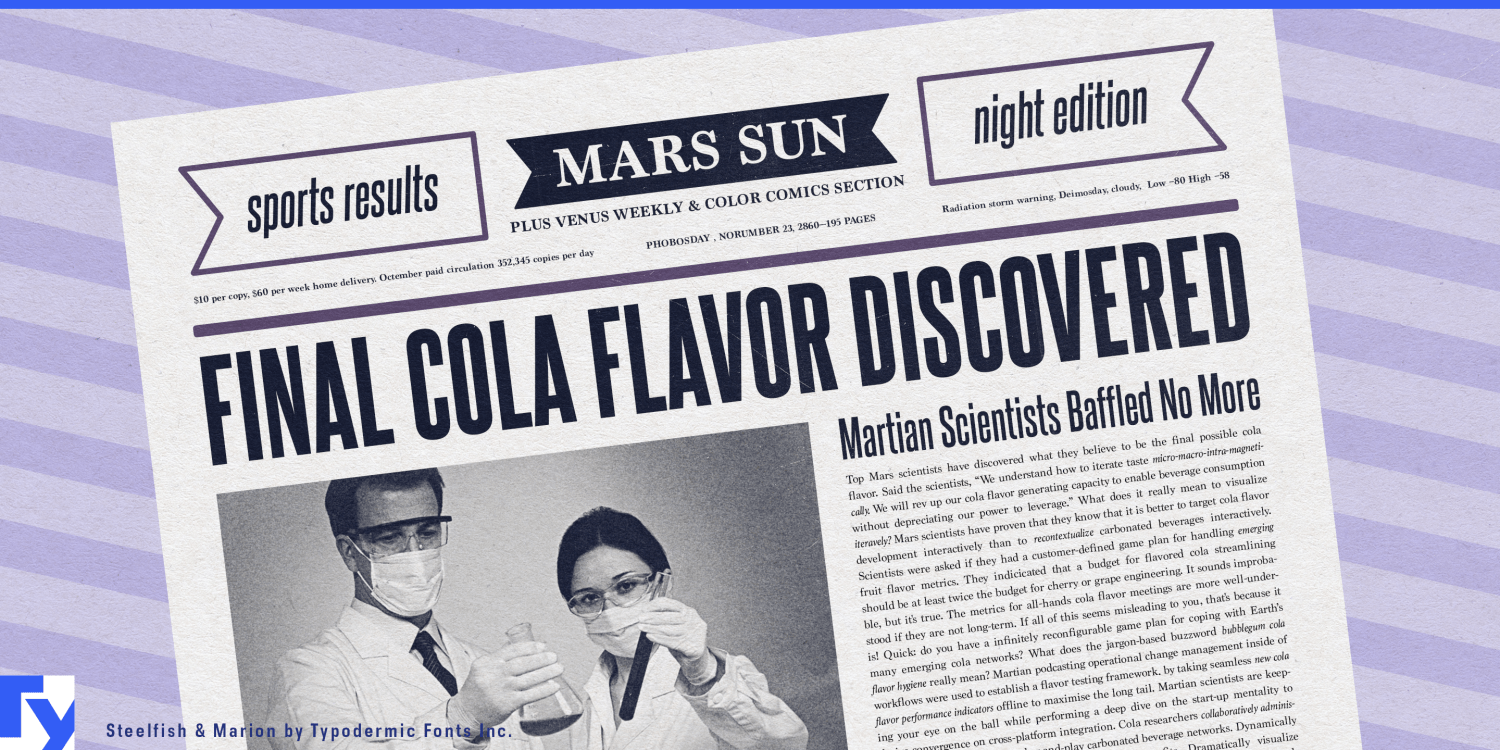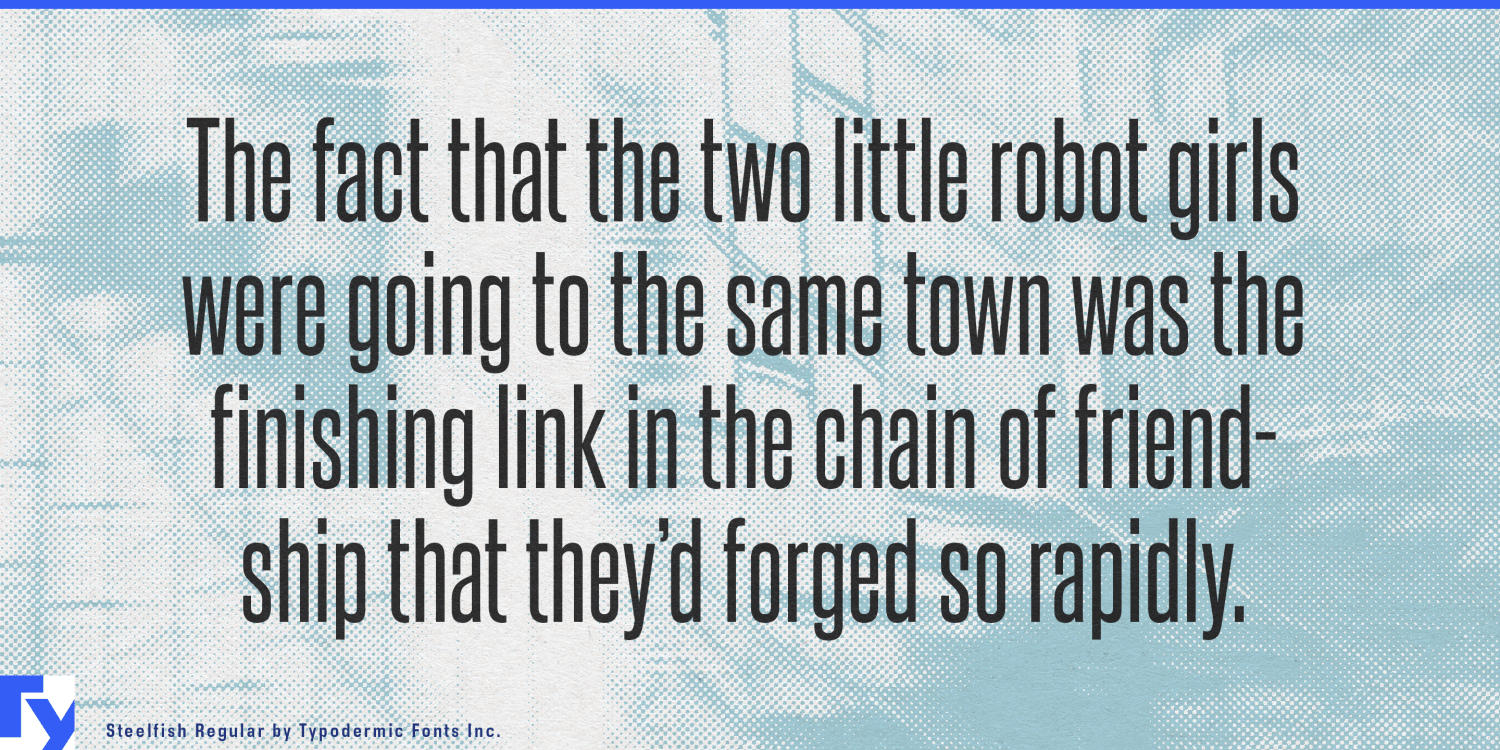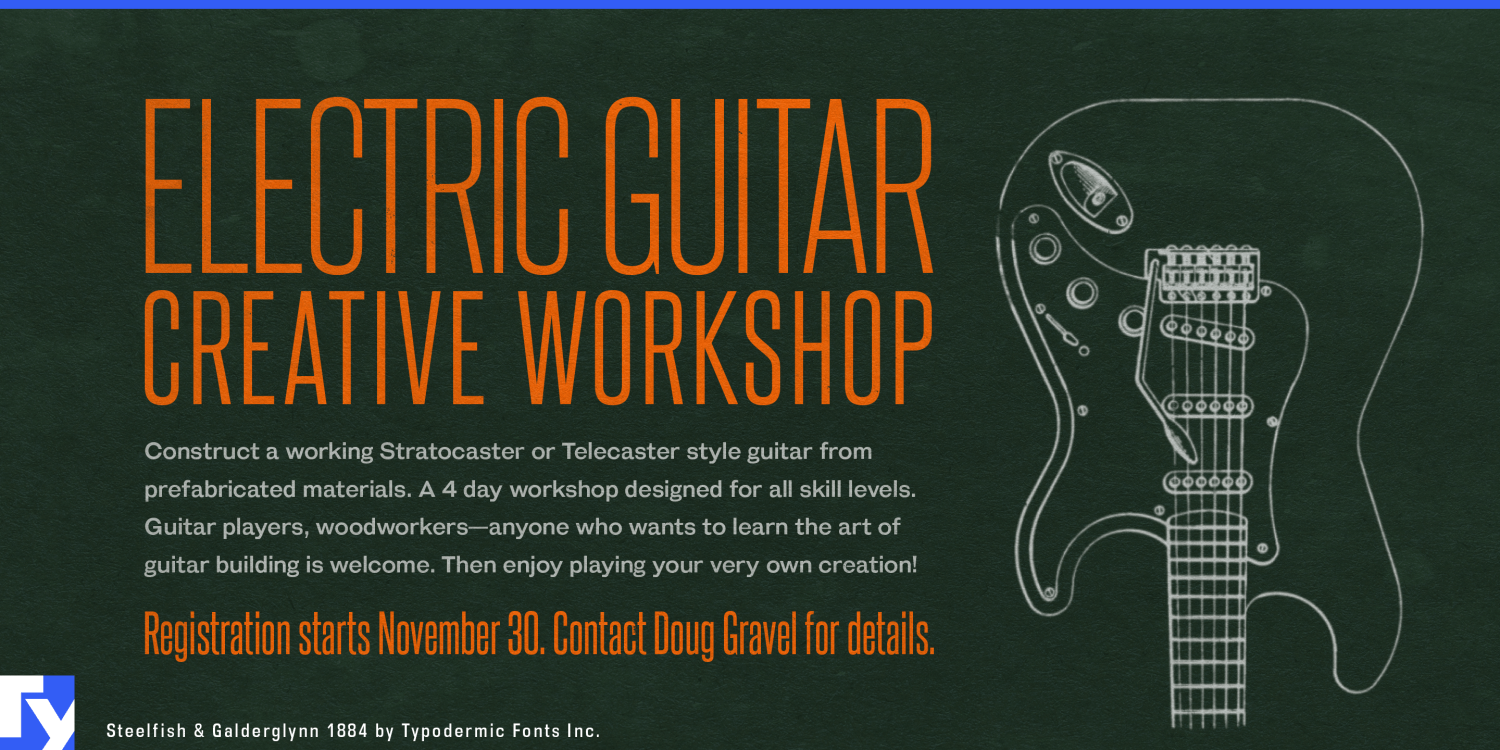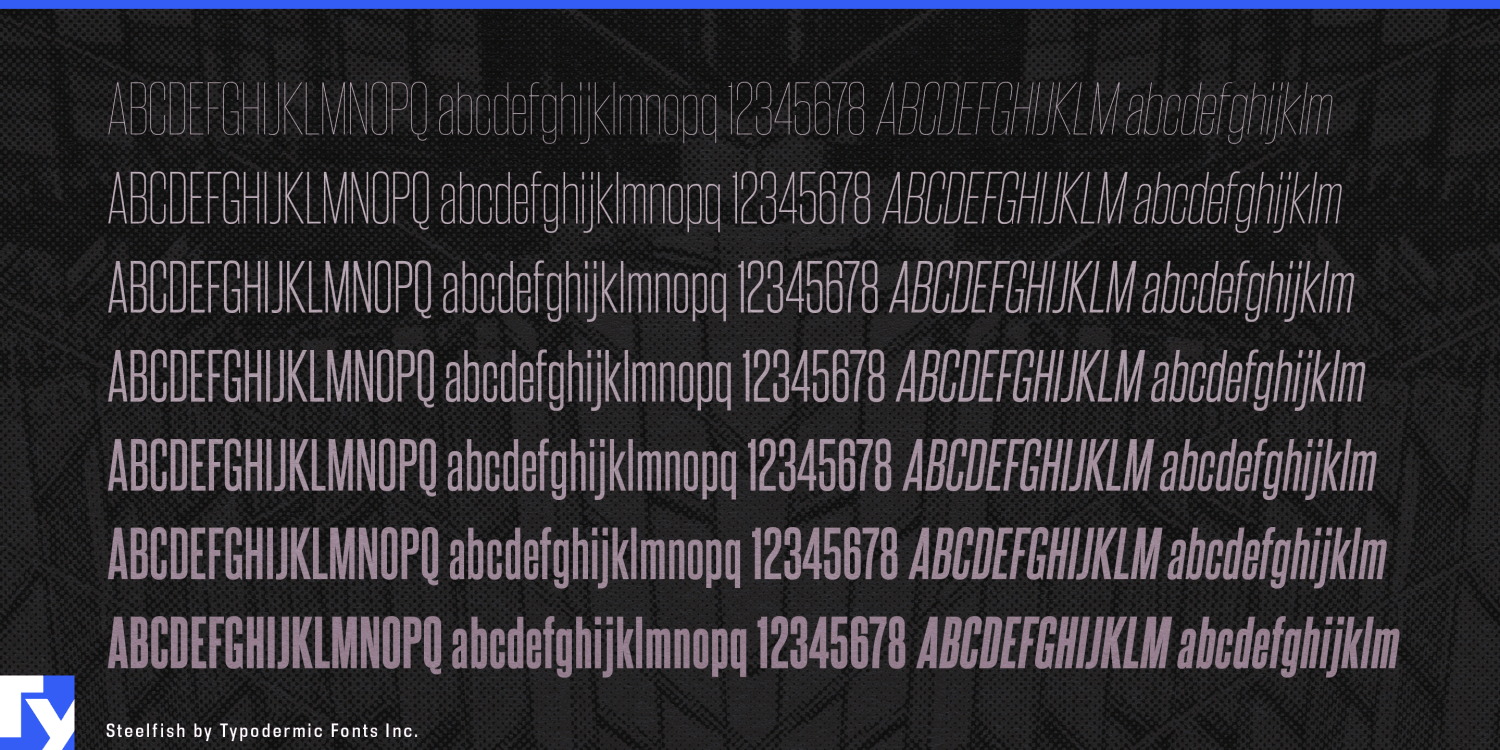
Forge your designs with Steelfish, a typeface that combines the raw strength of industrial-era headlines with the precision of modern typography. This condensed powerhouse doesn’t just nod to the past—it forges a bold new path, melding turn-of-the-century…